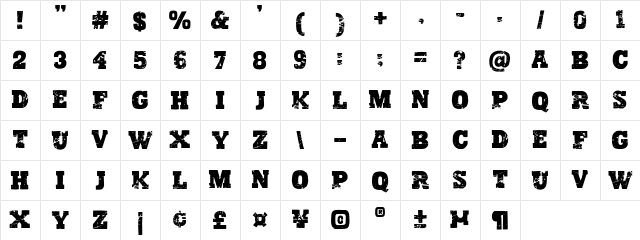
Sunday Sport brings high-energy athletic personality to the page - its confident, muscular forms are built for impact.
Pro Tip: Use Sunday Sport in all-caps headlines where its athletic energy can fully express itself. Pair with a solid, simple sans for supporting text.